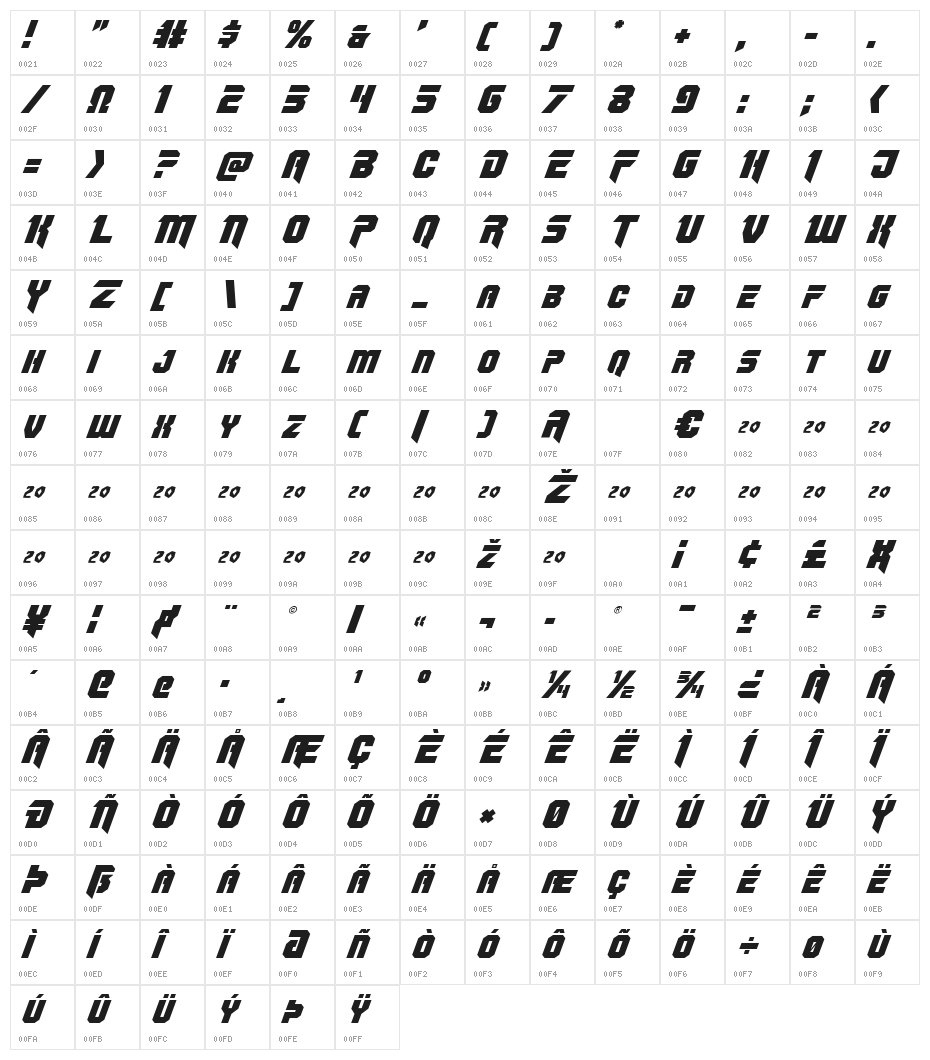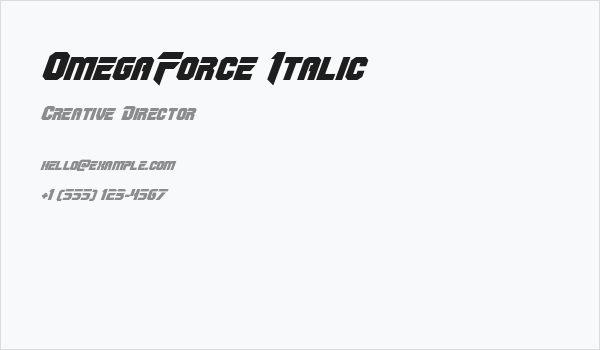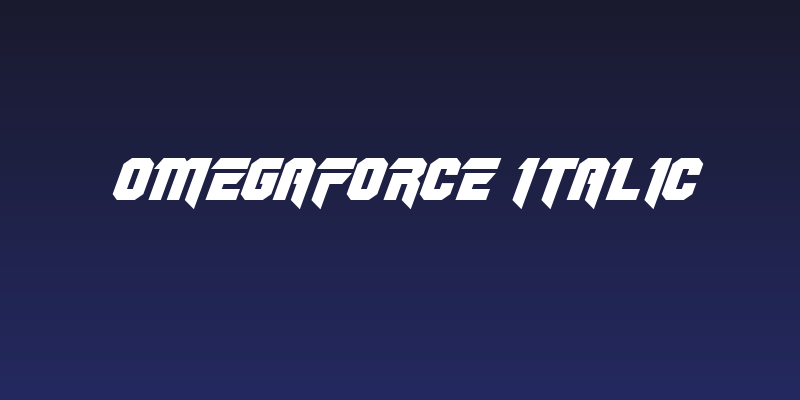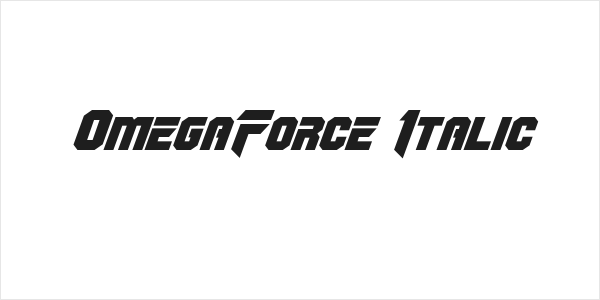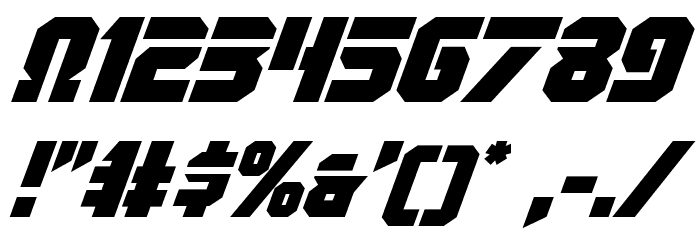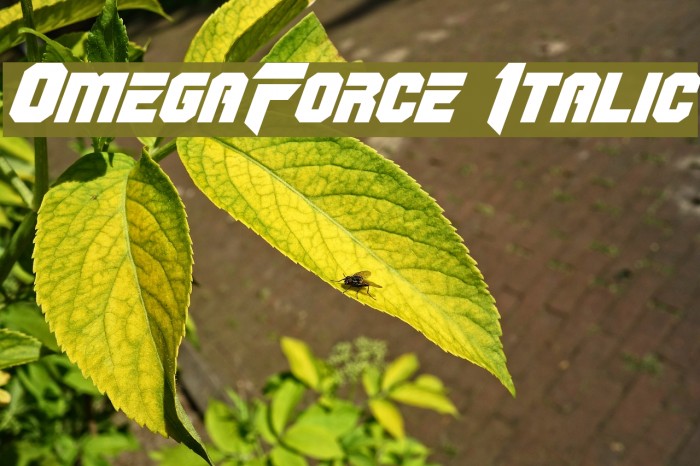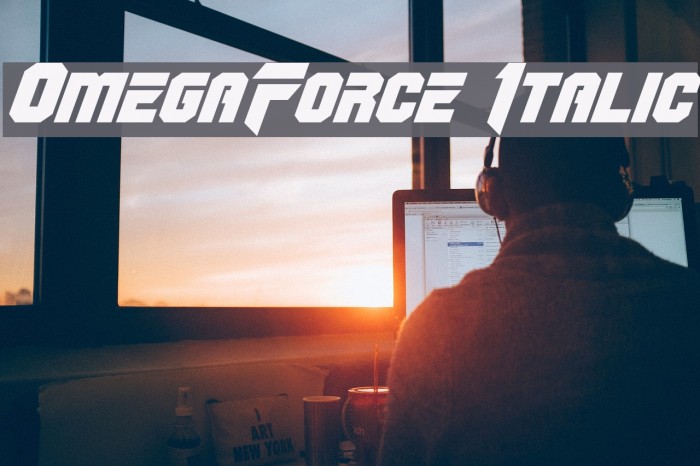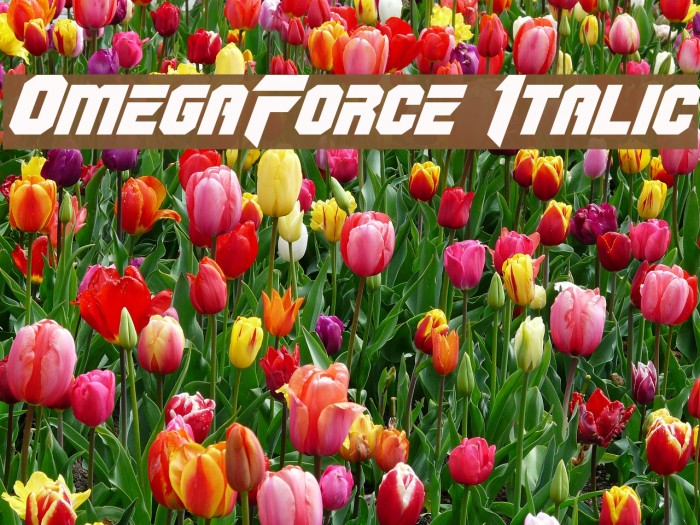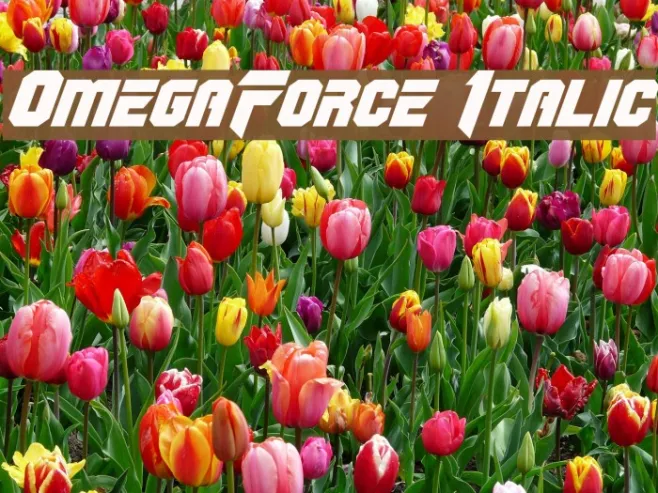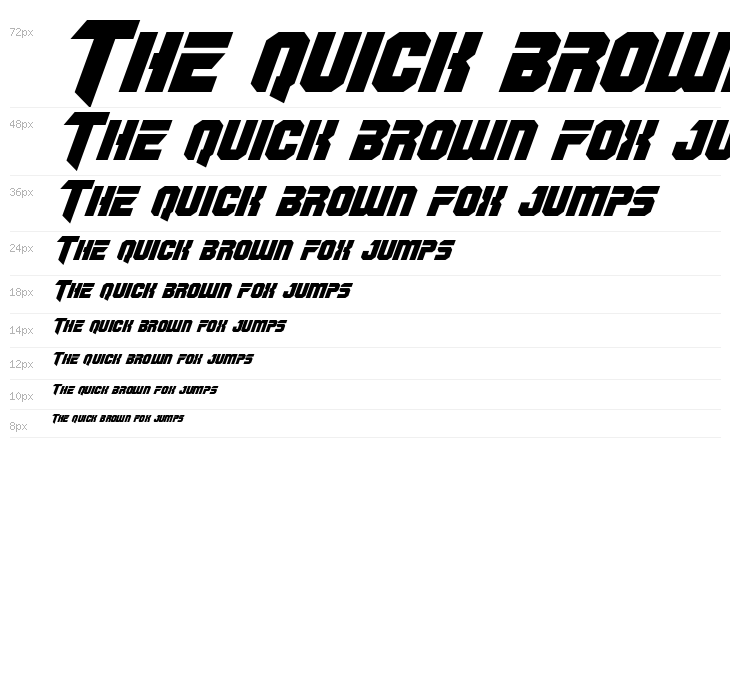
OmegaForce Italic Font
OmegaForce Italic Description
This font exhibits a bold and dynamic style with sharp, angular edges and a forward-leaning italic slant, giving it a sense of motion and energy. The characters are tightly spaced, enhancing its compact and impactful appearance. The uppercase and lowercase letters share a consistent geometric design, while the numbers and special characters maintain the same bold and aggressive aesthetic. The font's high contrast in stroke thickness adds to its striking and modern look, making it suitable for projects that require a strong visual presence.
| Proposed Projects | Ideal for sports branding, action-themed posters, video game titles, and dynamic logos. |